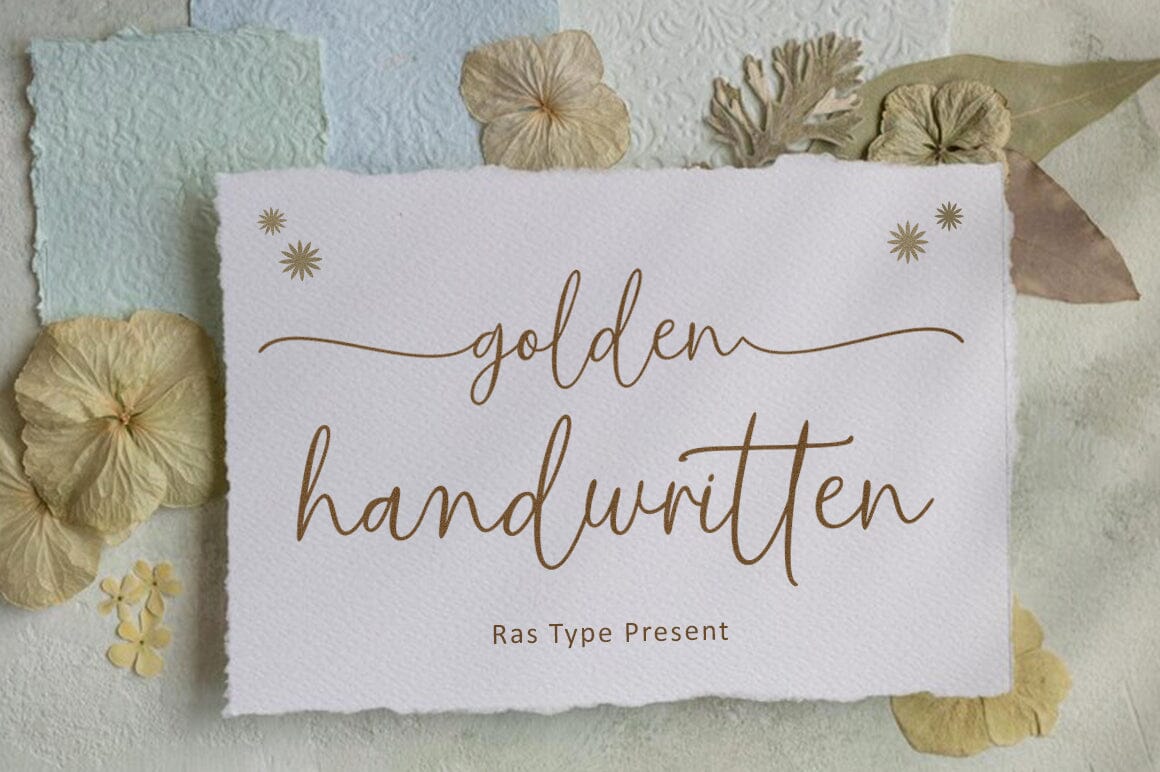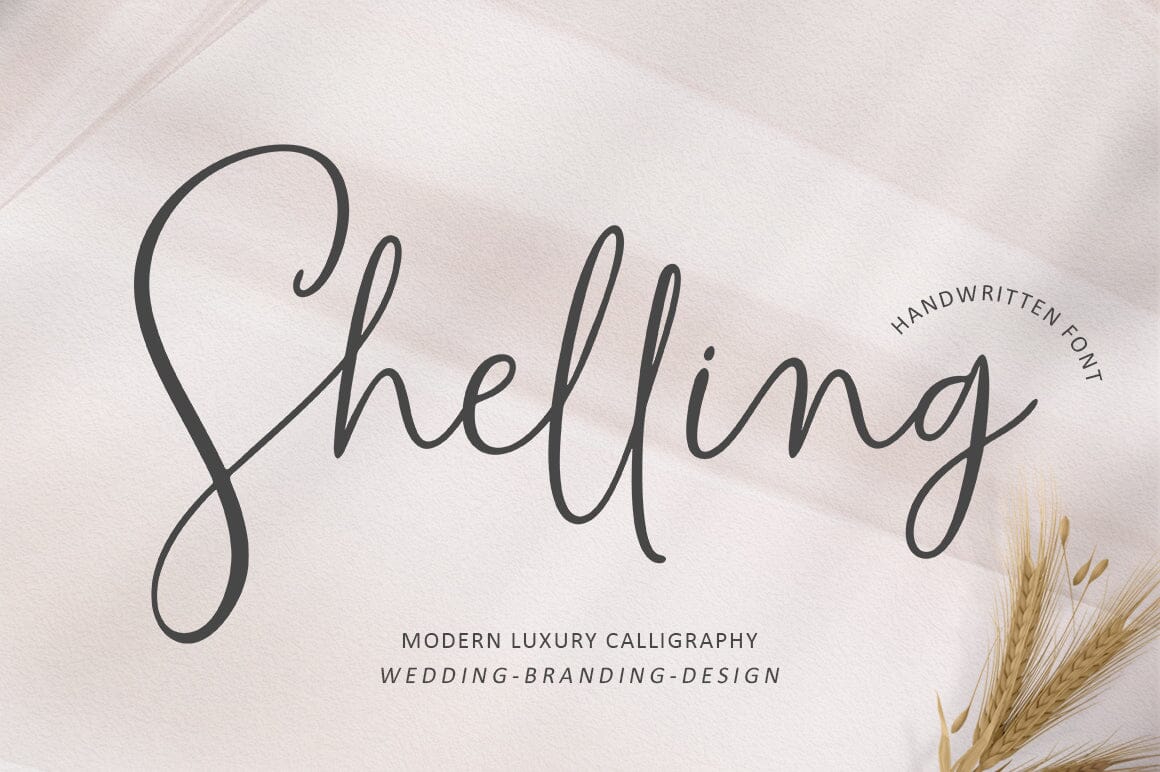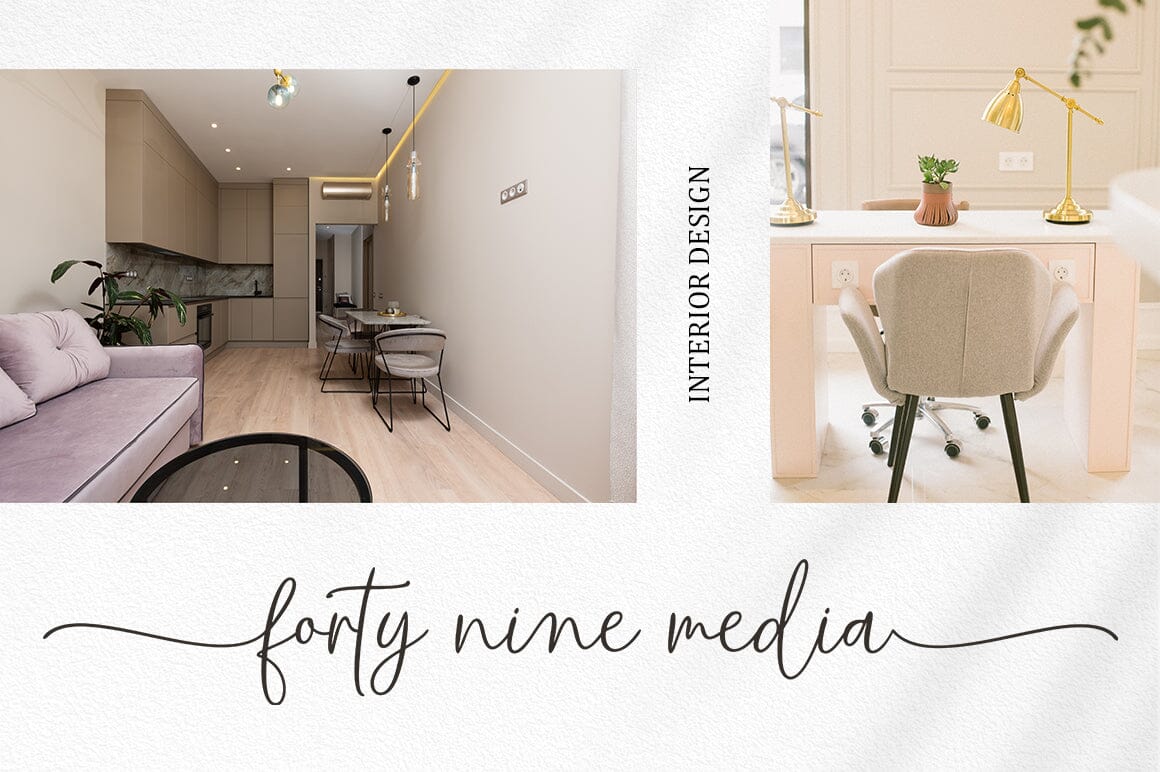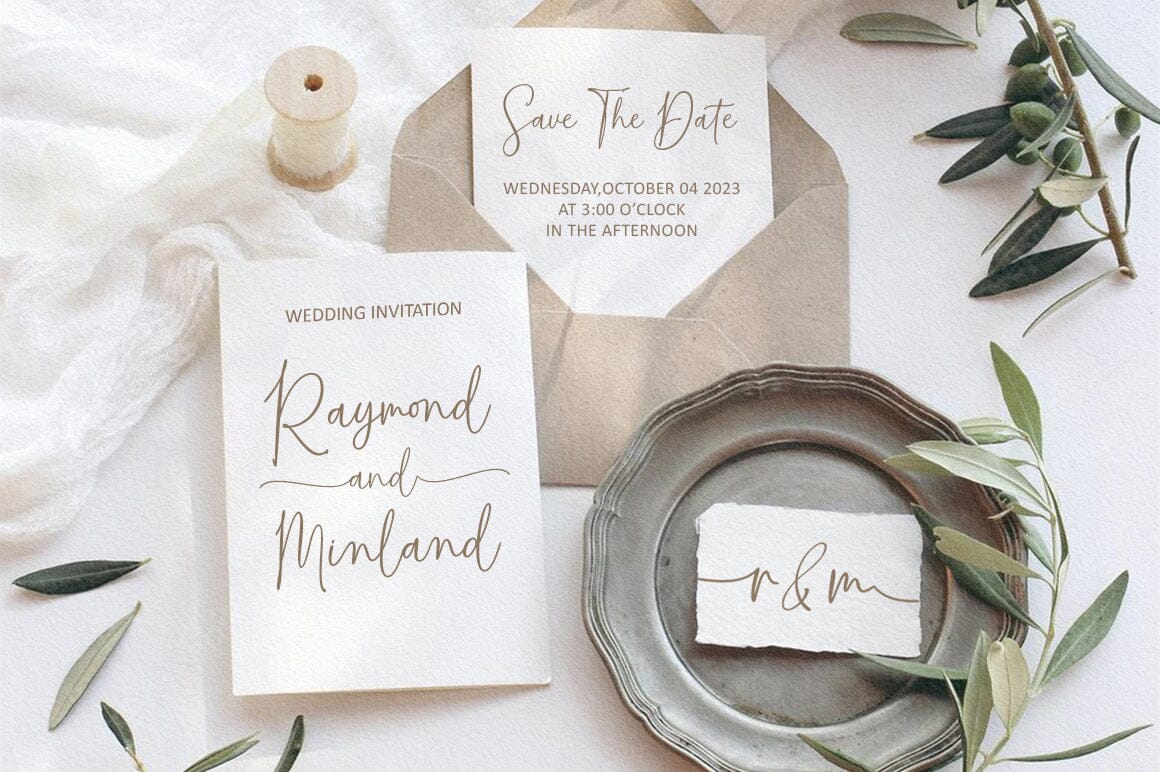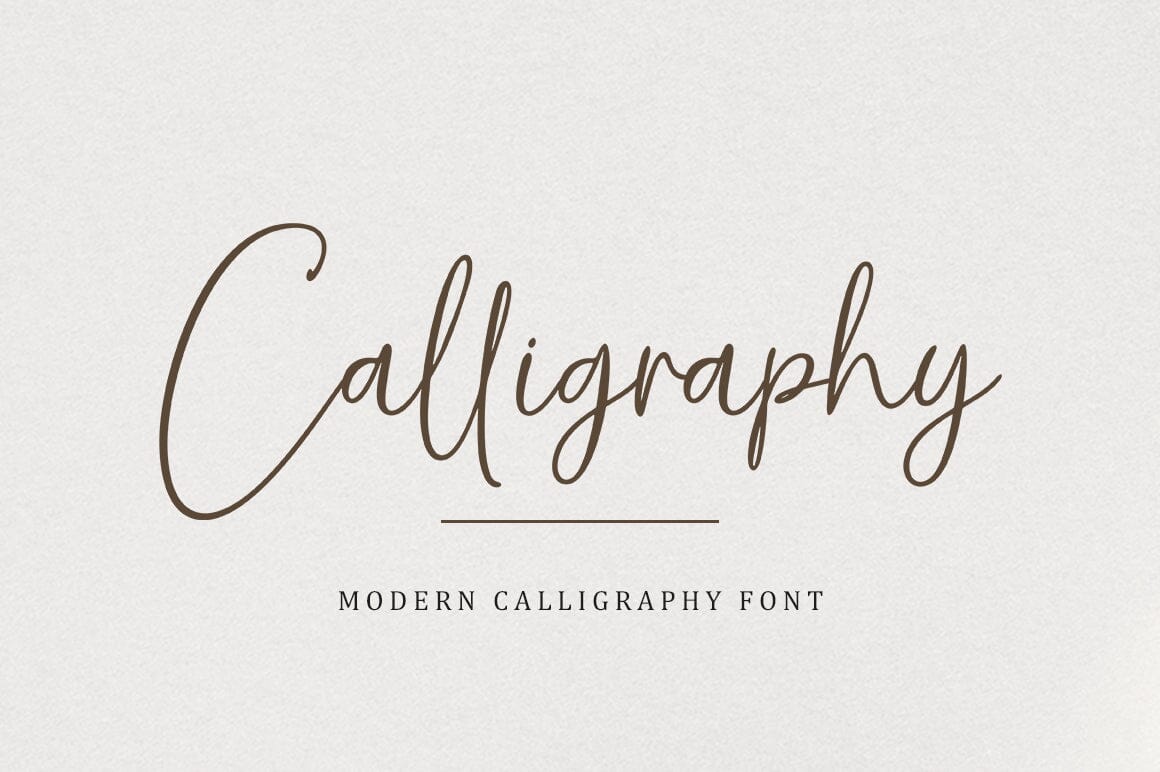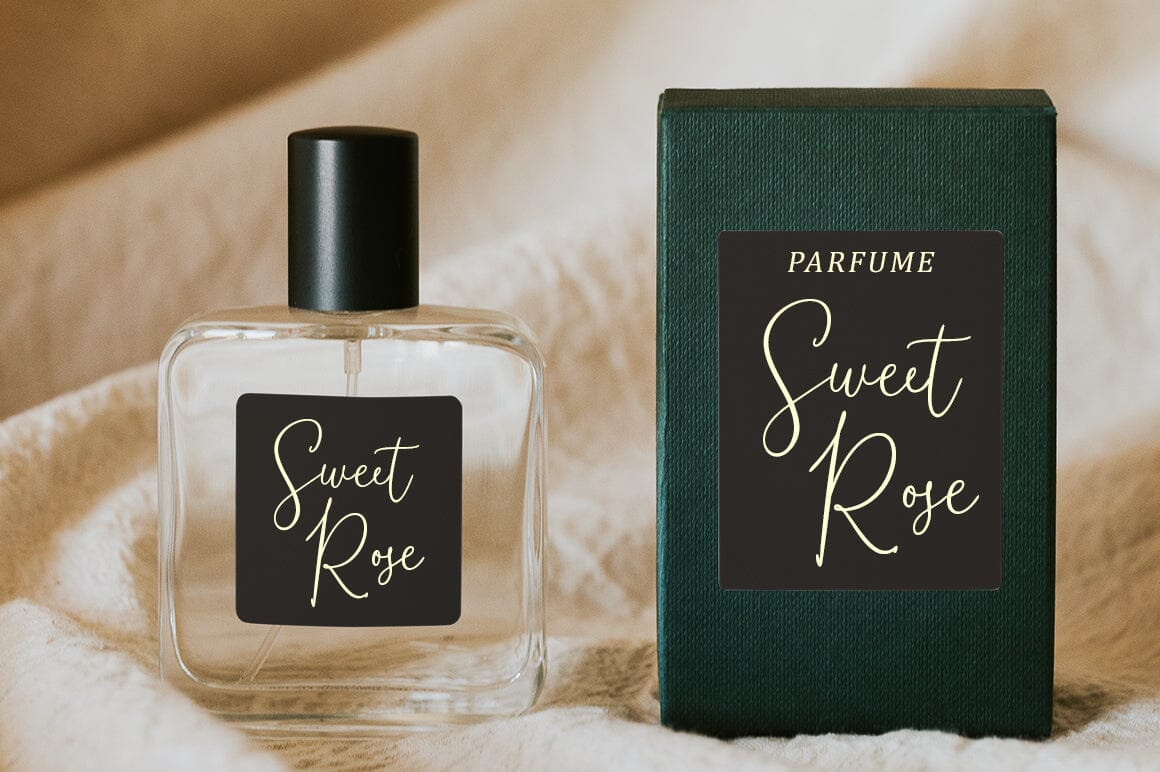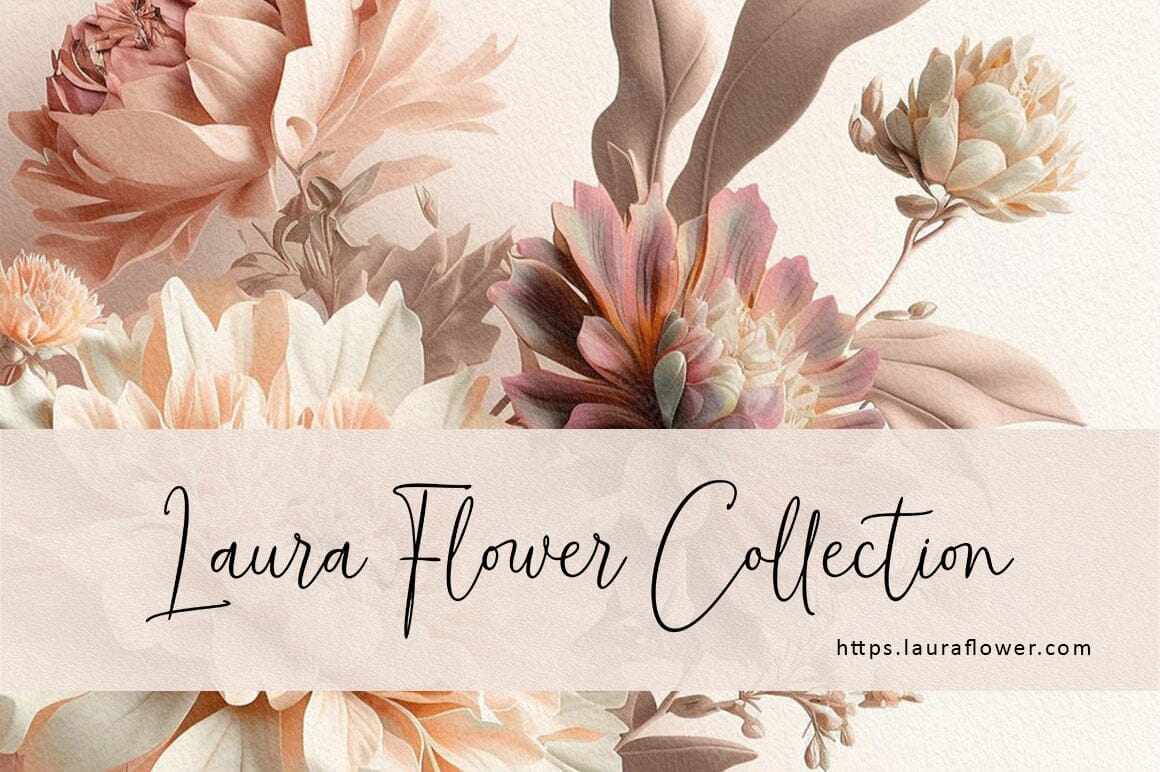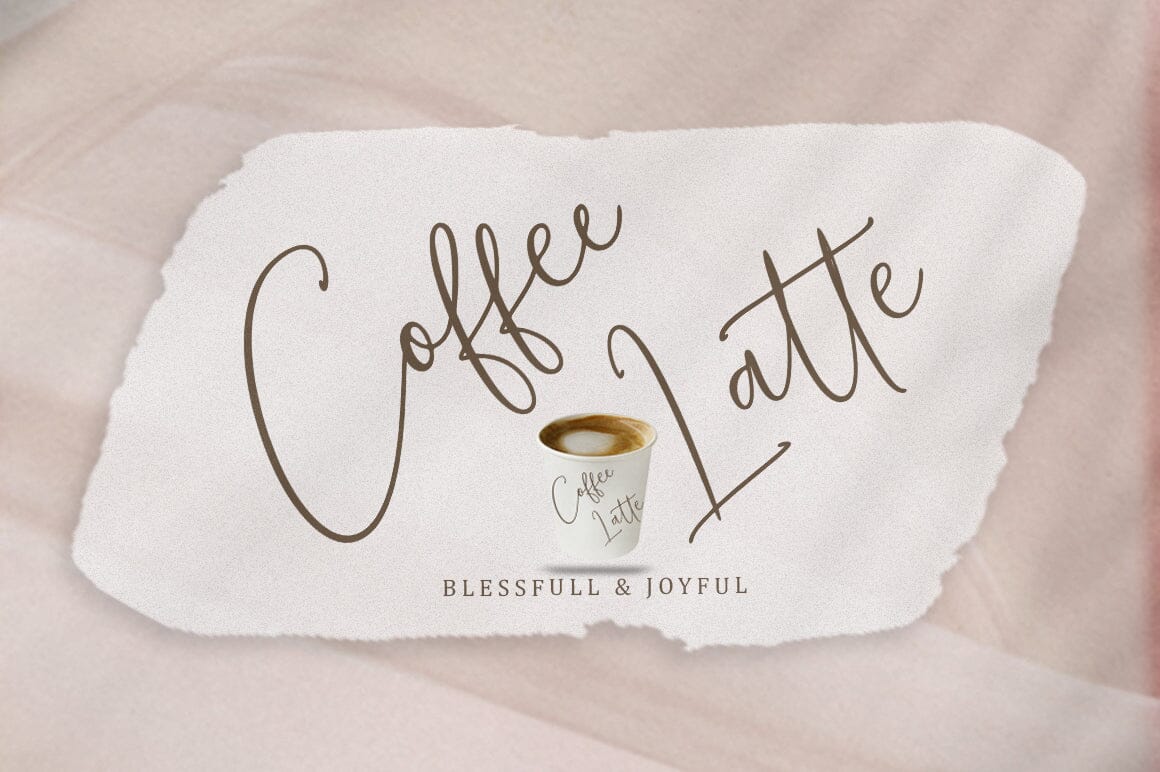
Shelling Script
About Shelling Script
Shelling Script is a beautiful and cool handwritten signature font. Looks amazing on branding, wedding invitations, quotes, t-shirts, letterhead, signage, business cards and other designs. This font is PUA encoded which means you can access all glyphs and swashes with ease! The font includes OpenType features with alternative styles, ligatures, and multiple language support. Happy Designing!